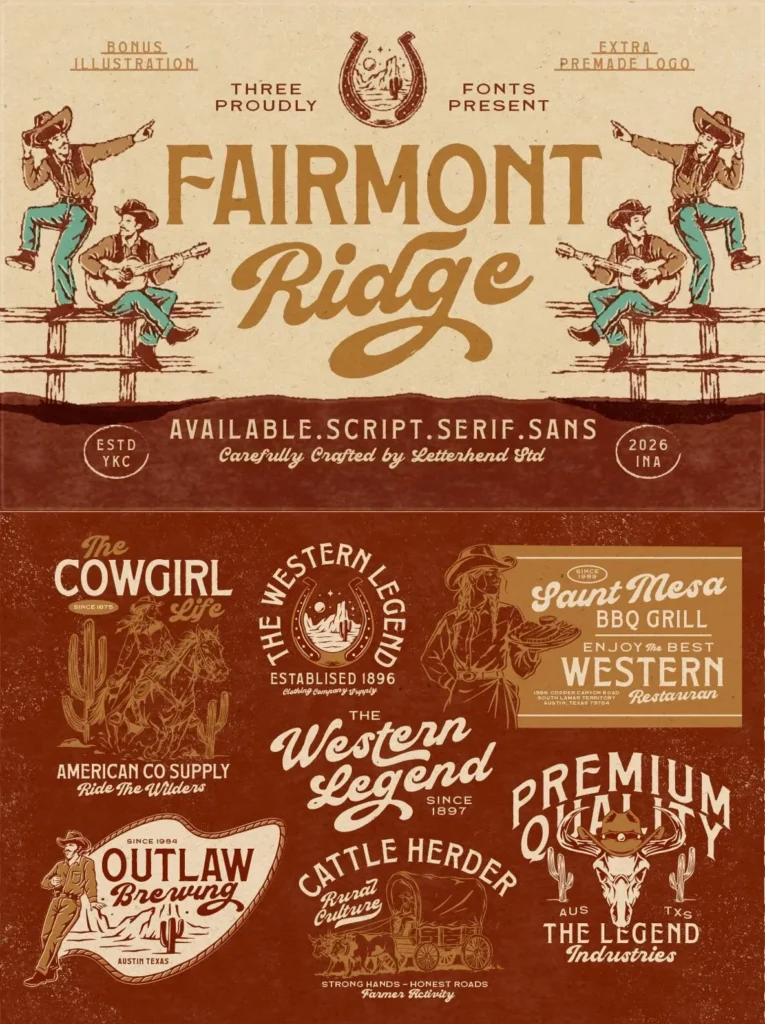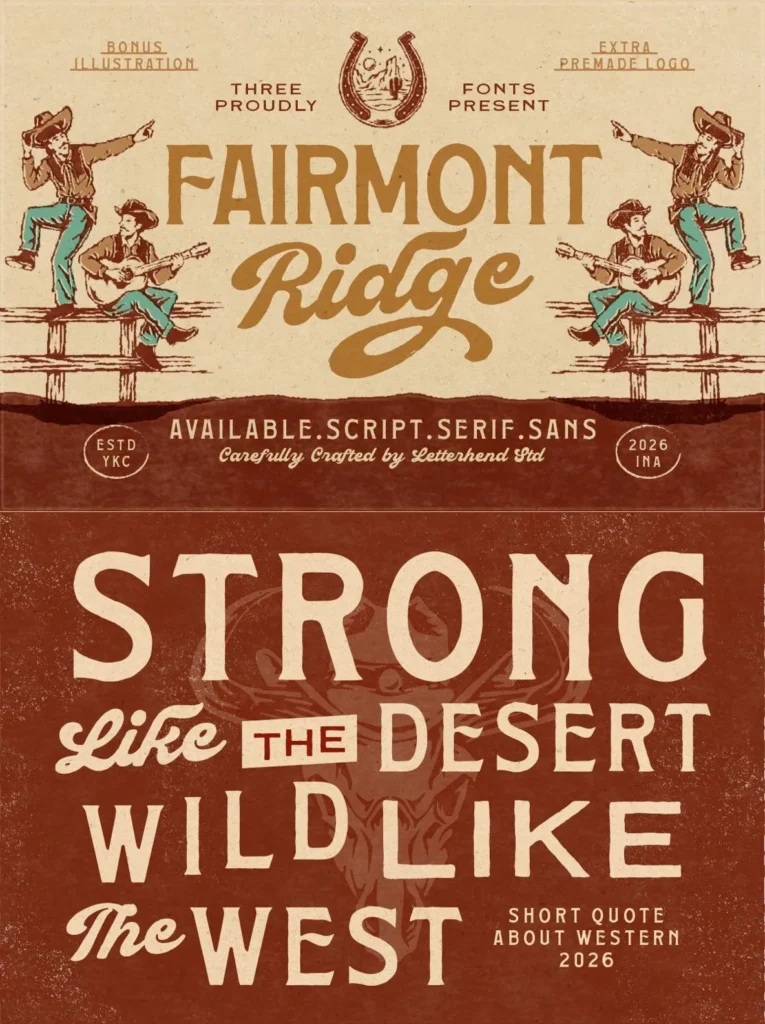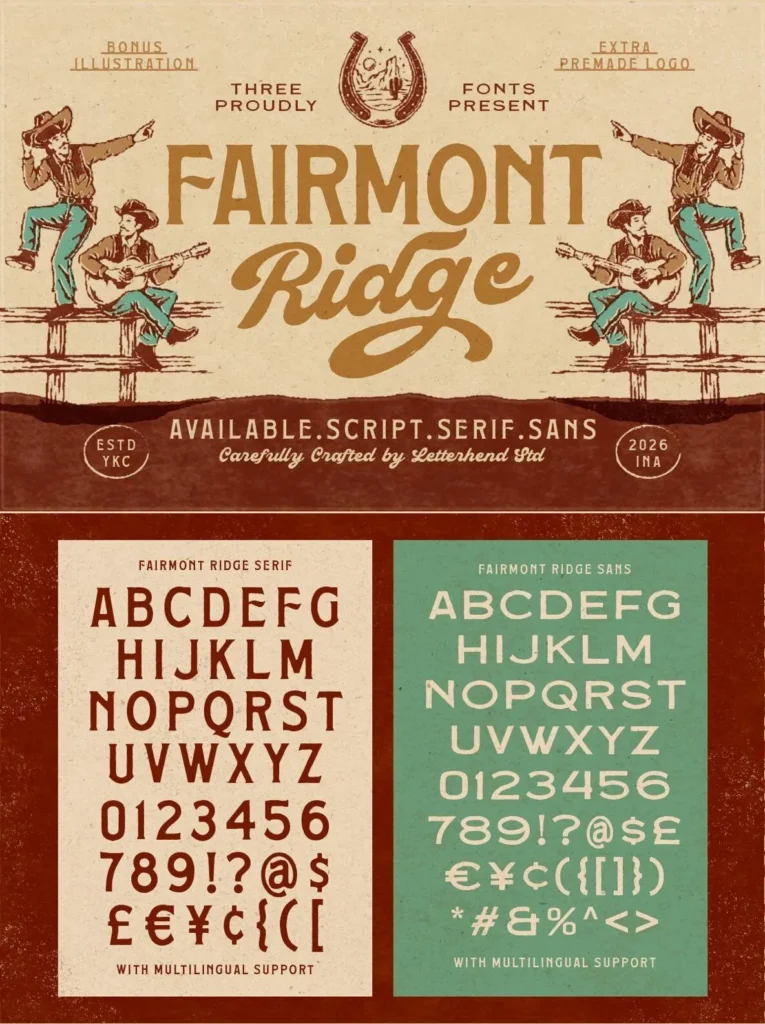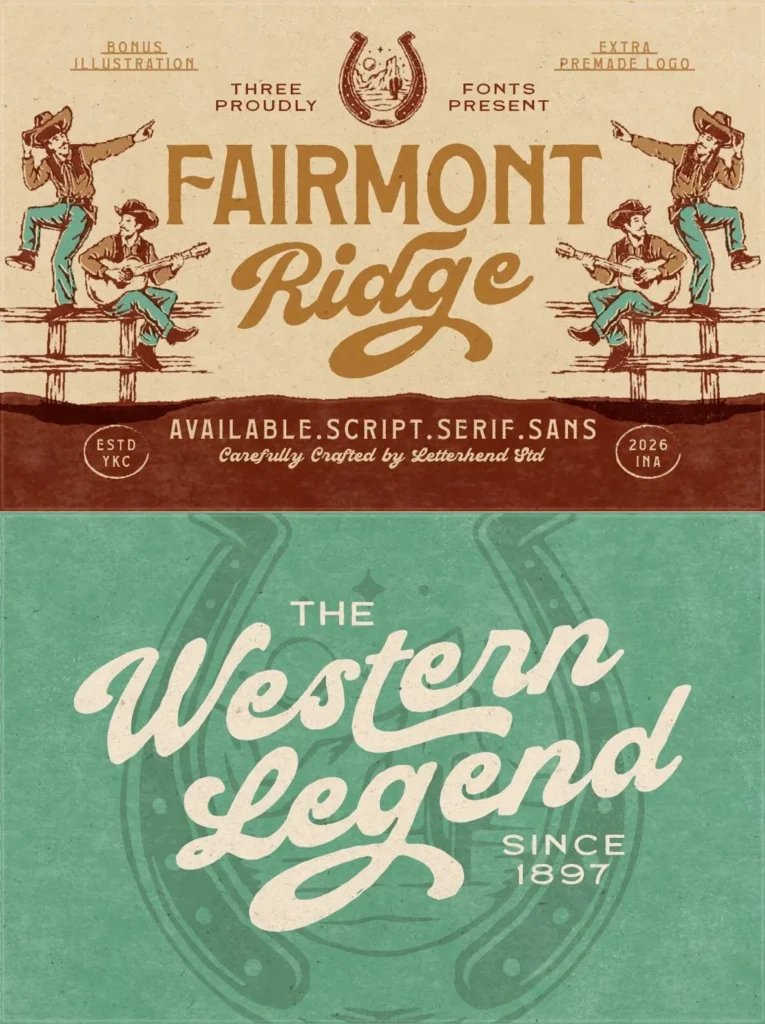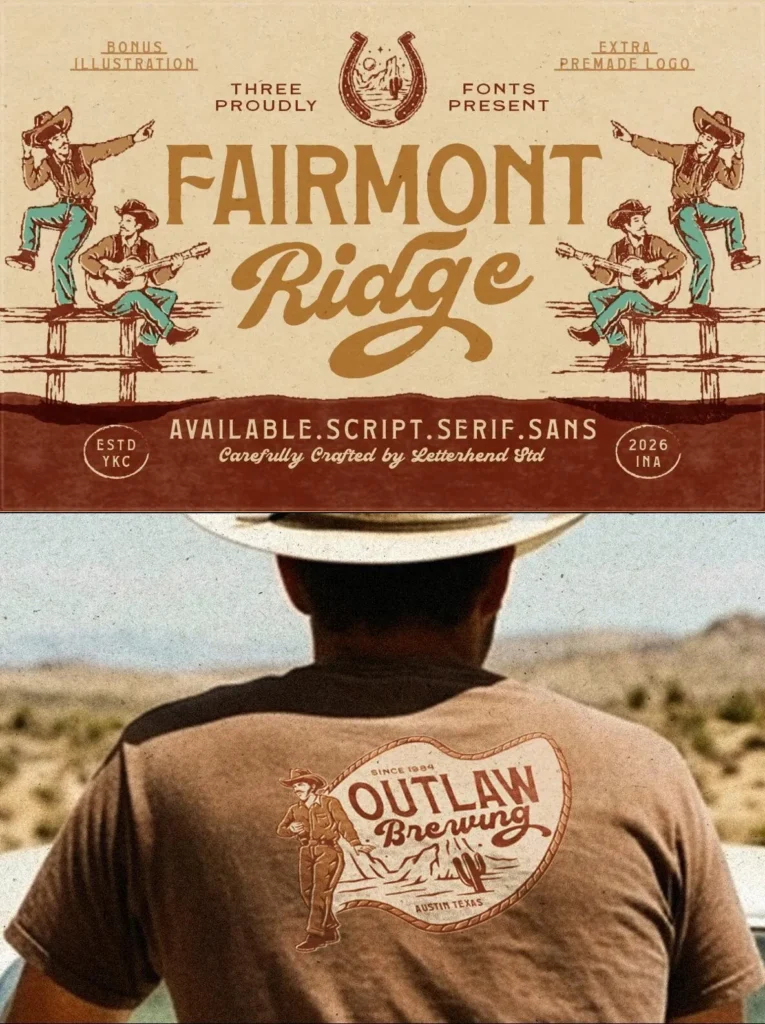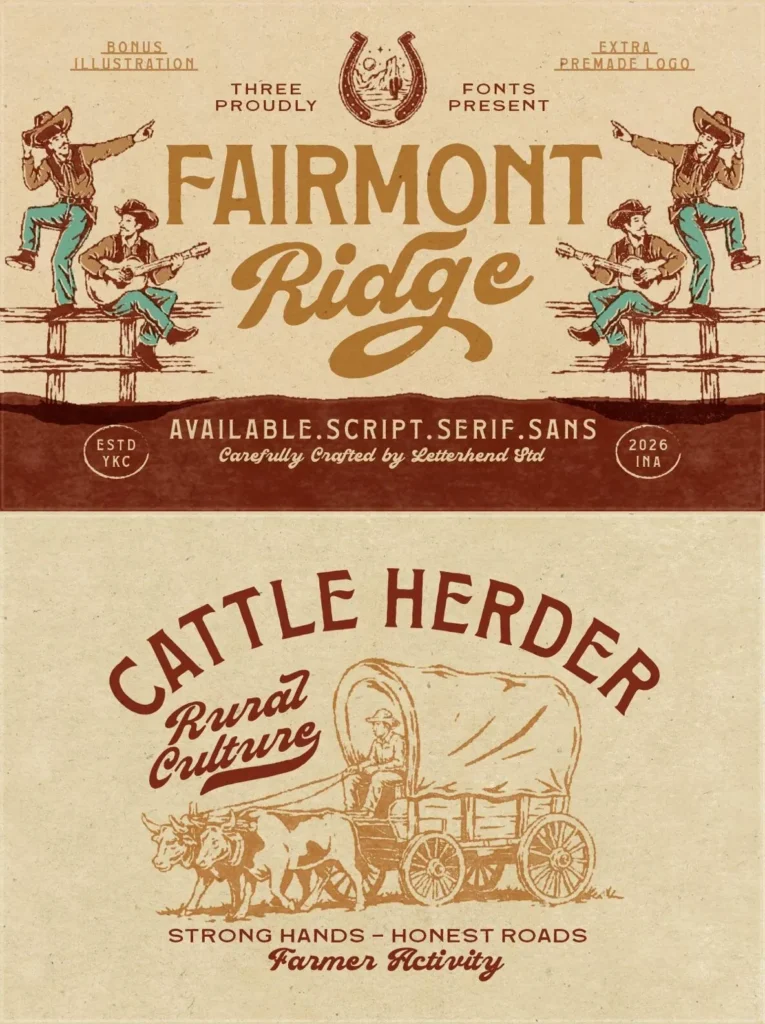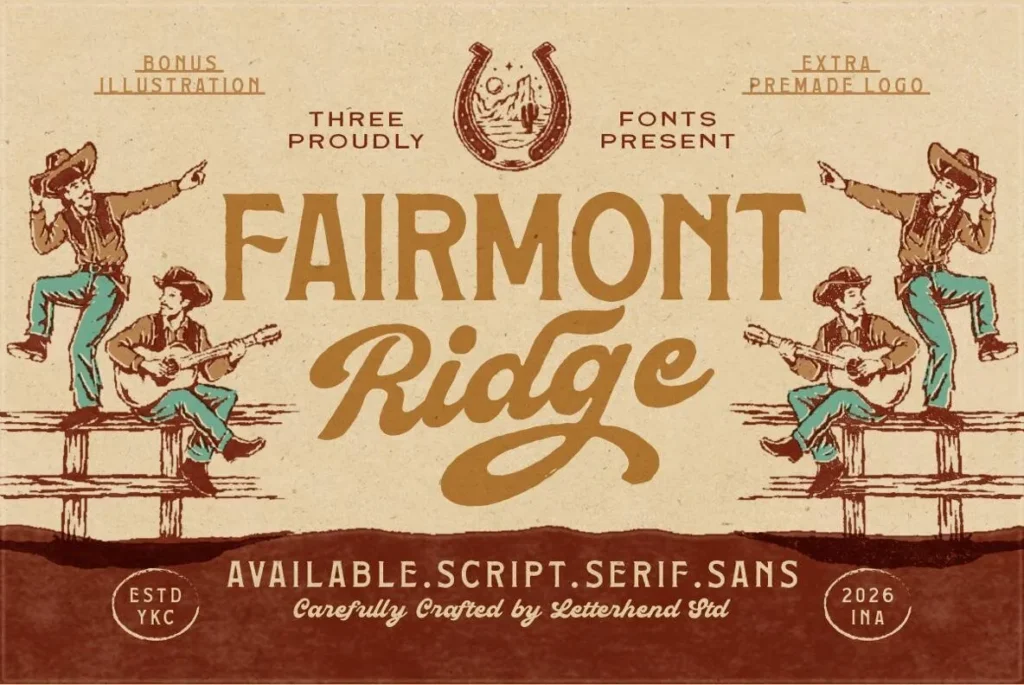
Fairmont Ridge — Western Type with Grit
Fairmont Ridge rides in with classic western charm. It blends bold serif, smooth script, and clean sans styles into one rugged vintage font family with a warm retro spirit. Inspired by old cowboy signs, dusty roadside motels, and country music posters, it brings a handcrafted feel that looks timeless, familiar, and full of character.
This western typeface suits designs that need grit, rhythm, and nostalgic appeal. Use Fairmont Ridge for posters, signage, packaging, music artwork, branding, and display typography where a strong vintage voice matters. Its mix of script and sans styles gives designers practical range while keeping the look rooted in classic country and roadside Americana.
Uppercase & lowercase
Script & Sans
Numbers and punctuation
Alternate characters
Multilingual Support